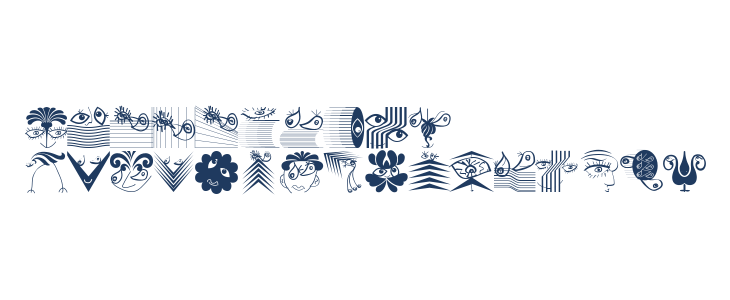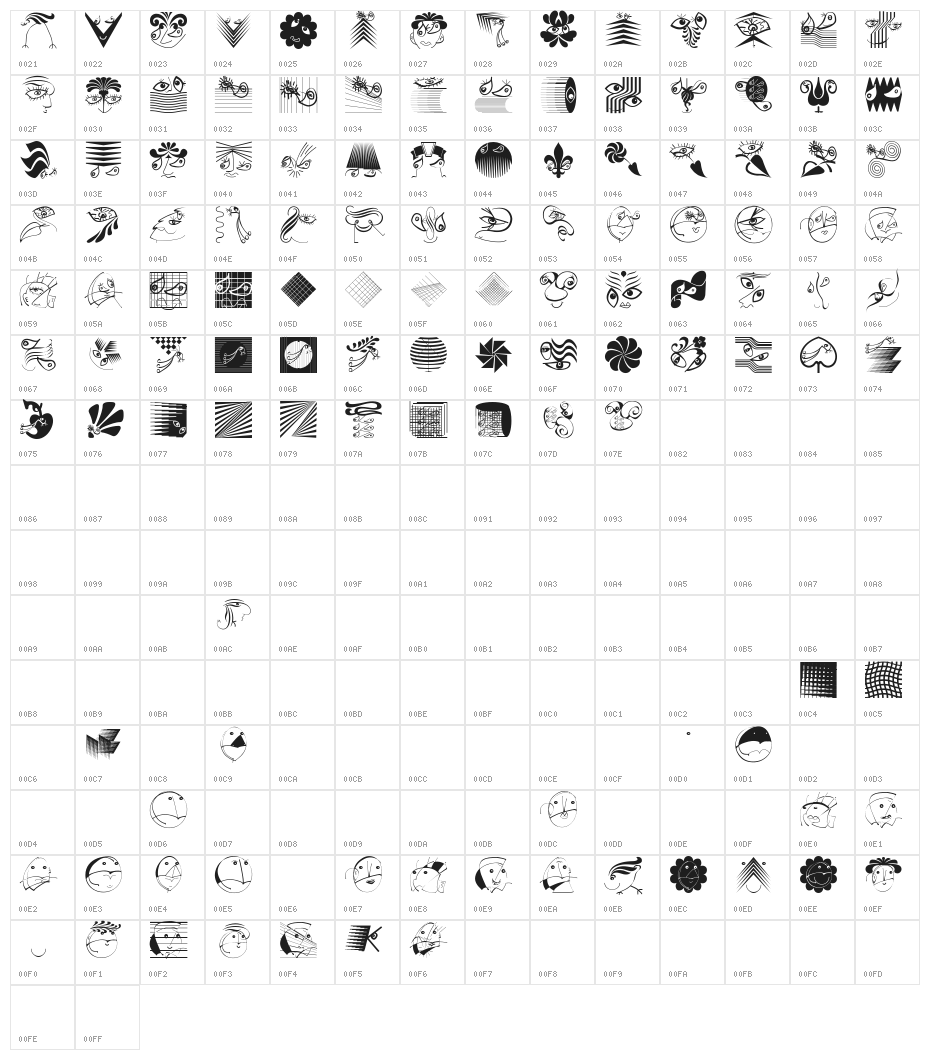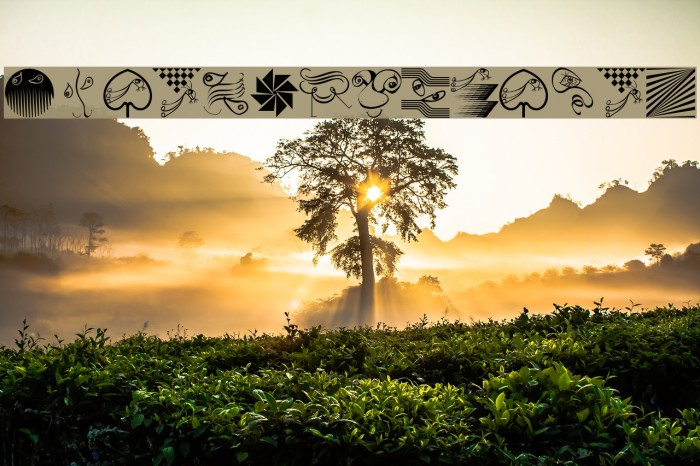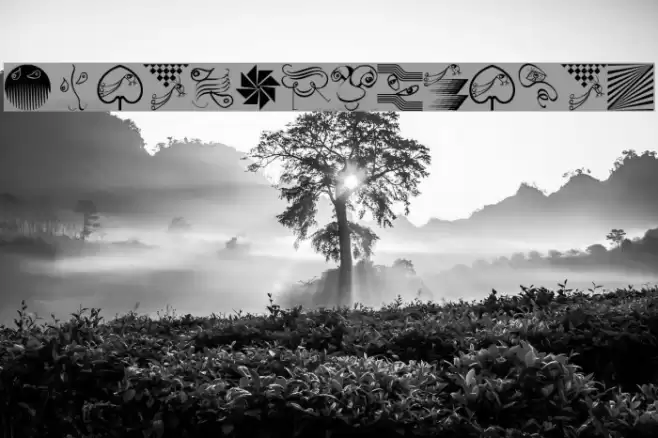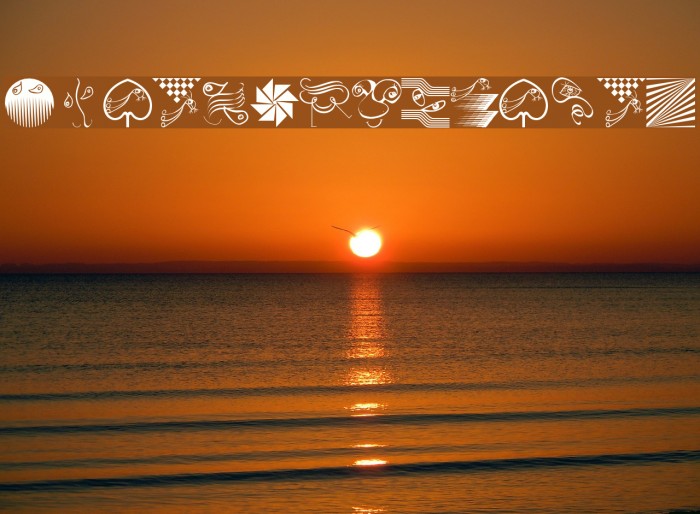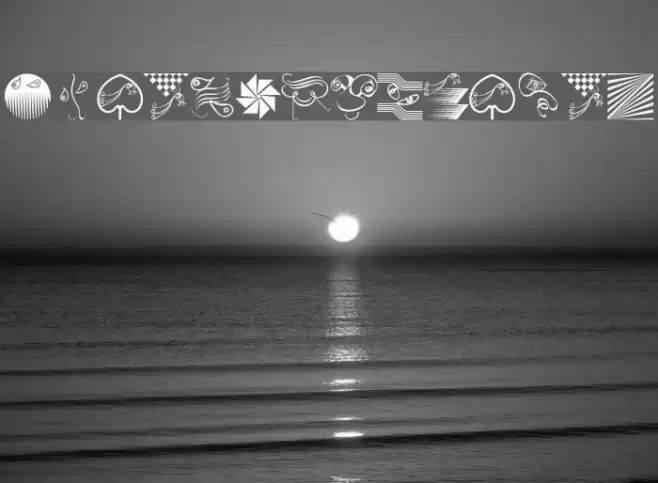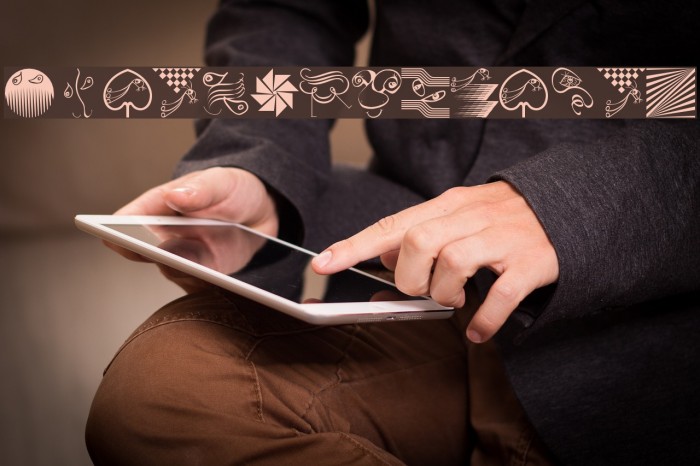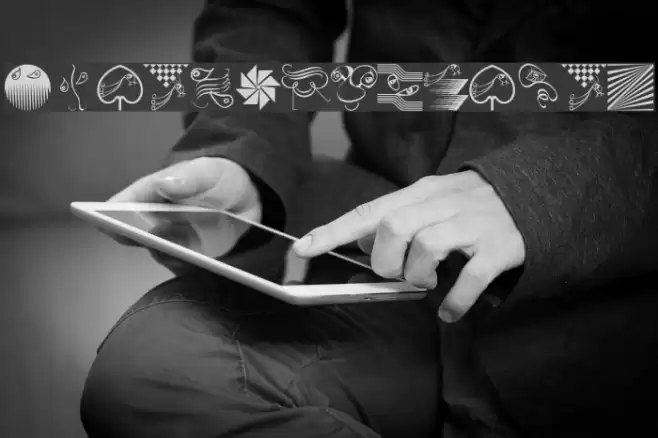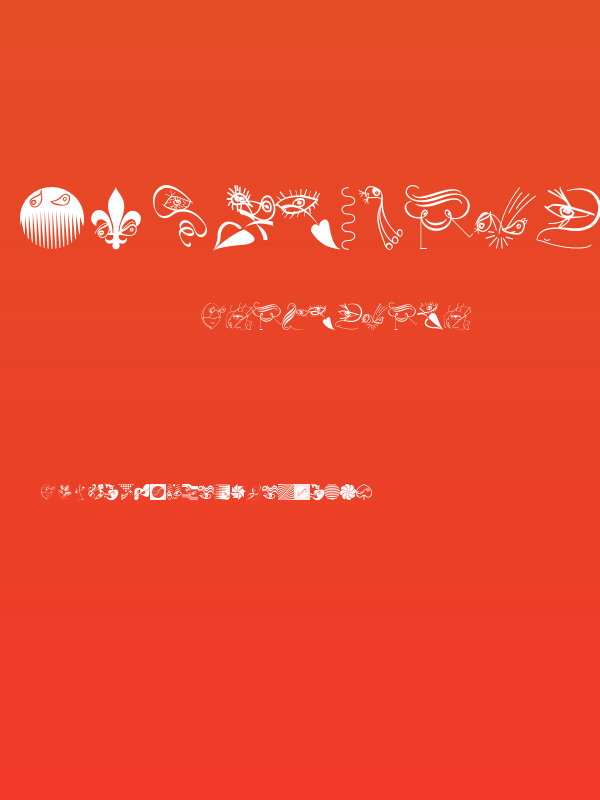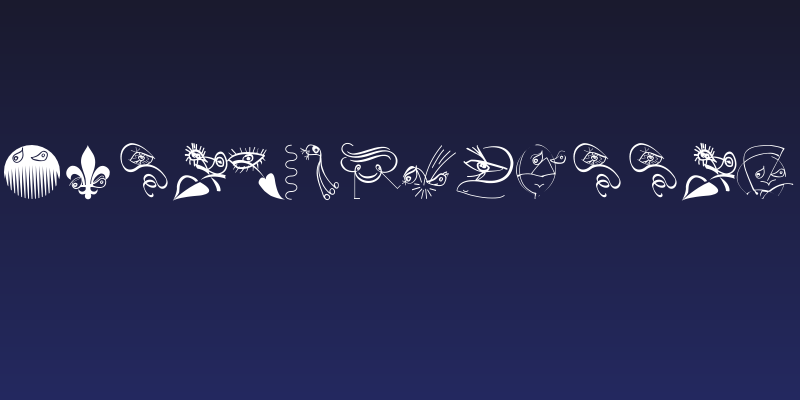
DesignPartsSix Font
DesignPartsSix Description
Highly decorative and abstract dingbat-style font featuring whimsical, surreal illustrations combining faces, eyes, flowers, geometric shapes, and organic lines. Each glyph is a unique pictorial composition, blending playful and artistic elements with strong visual impact.
| Overall Style | Decorative, Surreal, Artistic |
| Use Case | Logos, Posters, Decorative elements, Illustrative typography |
| Proposed Projects | Posters, album covers, branding for creative industries, editorial illustrations, decorative dividers, art projects. |